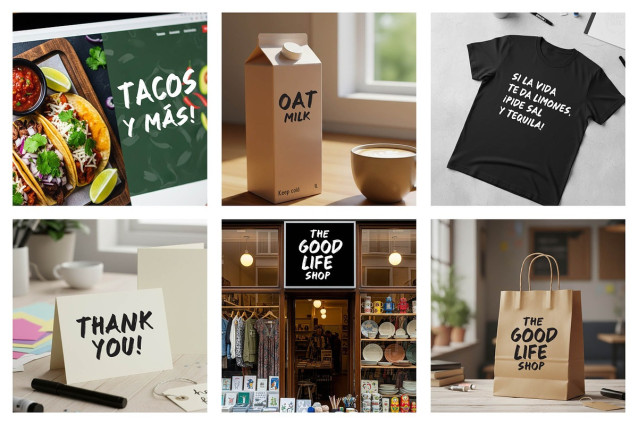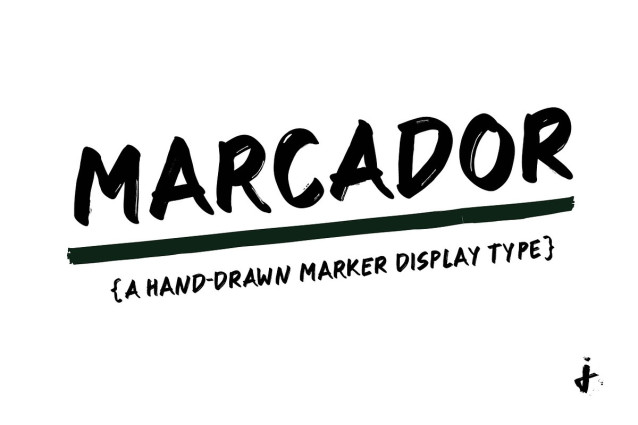
Marcador Brush Font
Marcador Brush Font is an all-caps typeface drawn with broad-tip marker strokes. Ideal for high-impact headlines and messages that evoke confidence and personality. It’s extremely versatile: use it on websites or books, album artwork or youtube thumbnails, packaging, streetwear, or logos. Anywhere at all.